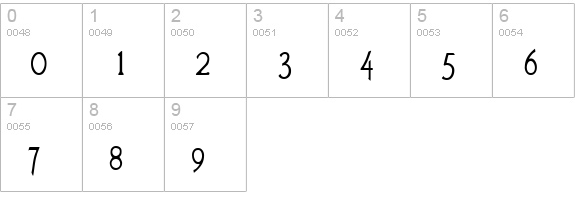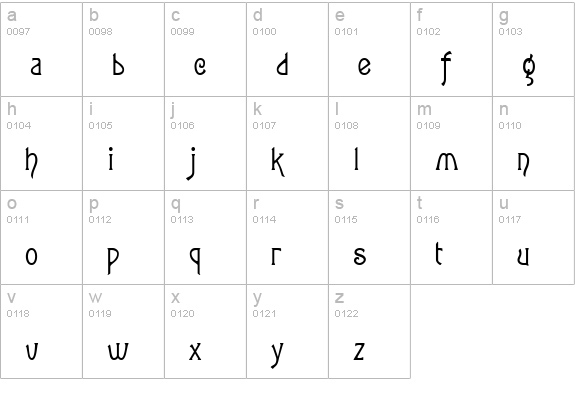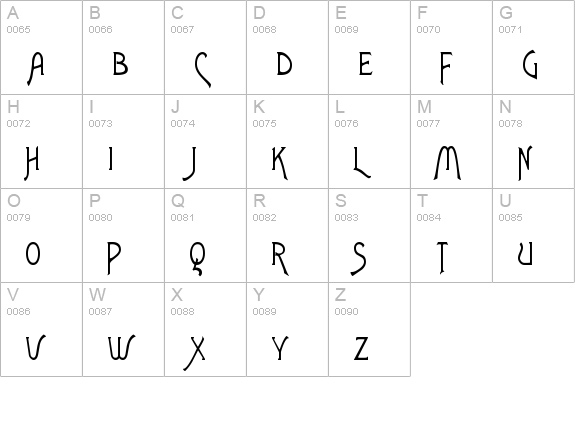
QTLautrecType Regular Font Details
QTLautrecType Regular is the standard, neutral variant in the QTLautrecType typeface family \xE2\x80\x94 well suited to general body text, paragraphs, and standard typographic work.
QTLautrecType Regular is a versatile and elegant font that exudes sophistication and style. Its clean and crisp letterforms, combined with its balanced proportions, make it a perfect choice for a wide range of design projects. Whether you're creating a logo, a website, or a printed piece, this font will add a touch of professionalism and refinement. One of the best things about QTLautrecType Regular is that it is available for free download at FontsMarket.com. Yes, you read that right – you can easily access this wonderful font without any cost. This makes it an ideal option for both personal and commercial use, as you can freely incorporate it into your creative endeavors without breaking the bank. The versatility of QTLautrecType Regular is further enhanced by its extensive character set, which includes uppercase and lowercase letters, numerals, punctuation marks, and special glyphs. This ensures that you have all the tools you need to create visually stunning and engaging designs. The smooth curves and precise details of QTLautrecType Regular give it a timeless appeal, making it suitable for a wide range of design styles. Whether you're going for a classic and traditional look or a modern and minimalistic aesthetic, this font will effortlessly complement your vision. When you choose QTLautrecType Regular, you're not only getting a high-quality font, but also the peace of mind that comes with knowing it is freely available for download at FontsMarket.com. So why wait? Start exploring the endless possibilities that this font offers and elevate your design projects to new heights.